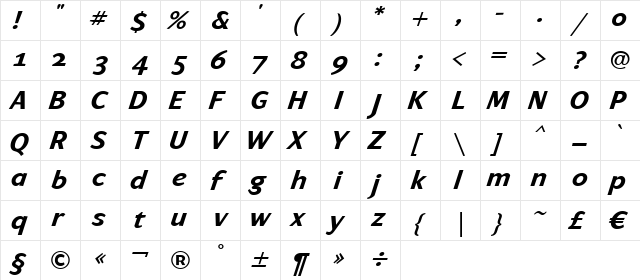
ArtemiusSans SN ItalicBold
| Foundry | Letterhead studio especially for ArtLebedev Group. Created by Yuri Gordon |
Design Context for ArtemiusSans SN Typeface
ArtemiusSans SN takes a measured approach to typography — its balanced proportions and neutral character make it a reliable workhorse for both digital and print work. Its italic angle brings a sense of urgency and motion to the letterforms. Its bold stroke weight gives it real presence on the page.
Pro Tip: Try ArtemiusSans SN for annotation and caption copy alongside an upright companion — the contrast in angle creates a dynamic but ordered typographic system.